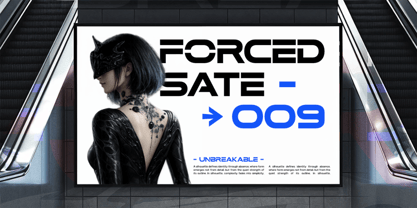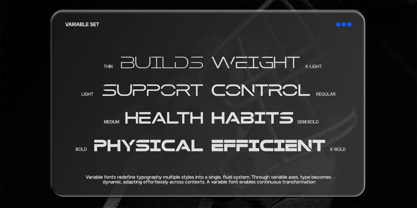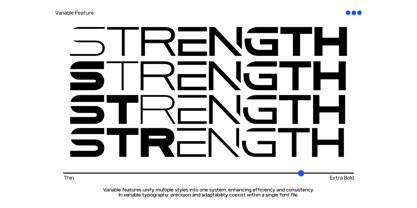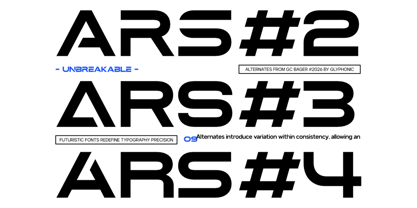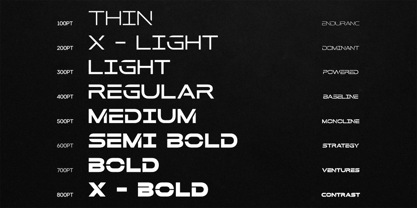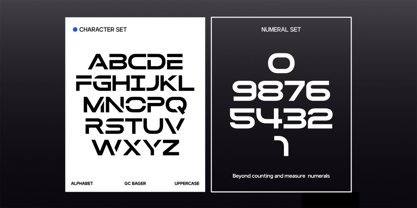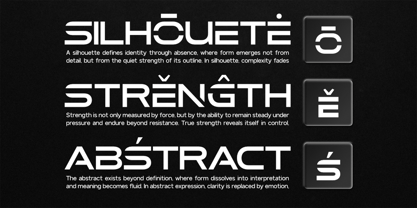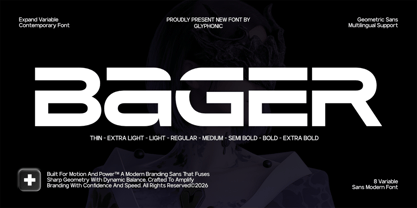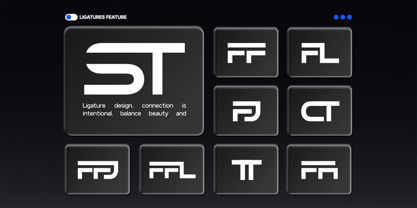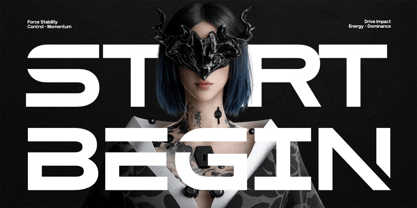
GC Bager
by Onyx Studio
The GC Bager Font Family was designed by Muhammad Hafiizh Solana and published by Onyx Studio. GC Bager contains 8 styles and family package options. More about this family
GC Bager – Futuristic Sans is a modern sans serif typeface crafted with sharp geometry and a forward-thinking aesthetic. Designed to embody speed, precision, and technological sophistication, Bager delivers a bold and futuristic typographic voice that stands out in high-impact visual environments. Built with extended proportions, clean cuts, and dynamic horizontal forms—as seen in its distinctive letter structure—**GC Bager** creates a strong sense of motion and direction. The geometric construction is enhanced with sleek detailing, making it ideal for designs that demand a cutting-edge and modern appearance. As a variable typeface with multiple weight options, GC Bager allows designers to explore a wide range of typographic expressions—from ultra-light futuristic compositions to bold, commanding headlines. Despite its stylized form, the font maintains excellent readability and visual balance. Whether used for dynamic interfaces, experimental layouts, or bold branding systems, GC Bager brings speed, structure, and futuristic clarity to your typography. Features: - Variable Font (8 Weight Options: Thin to Extra Bold) - Uppercase & Lowercase - Numbers & Punctuation - Futuristic Geometric Sans Construction - Extended & Dynamic Letterforms - Multilingual Support (170+ Languages) Bring futuristic energy, precision, and bold innovation to your design with GC Bager.